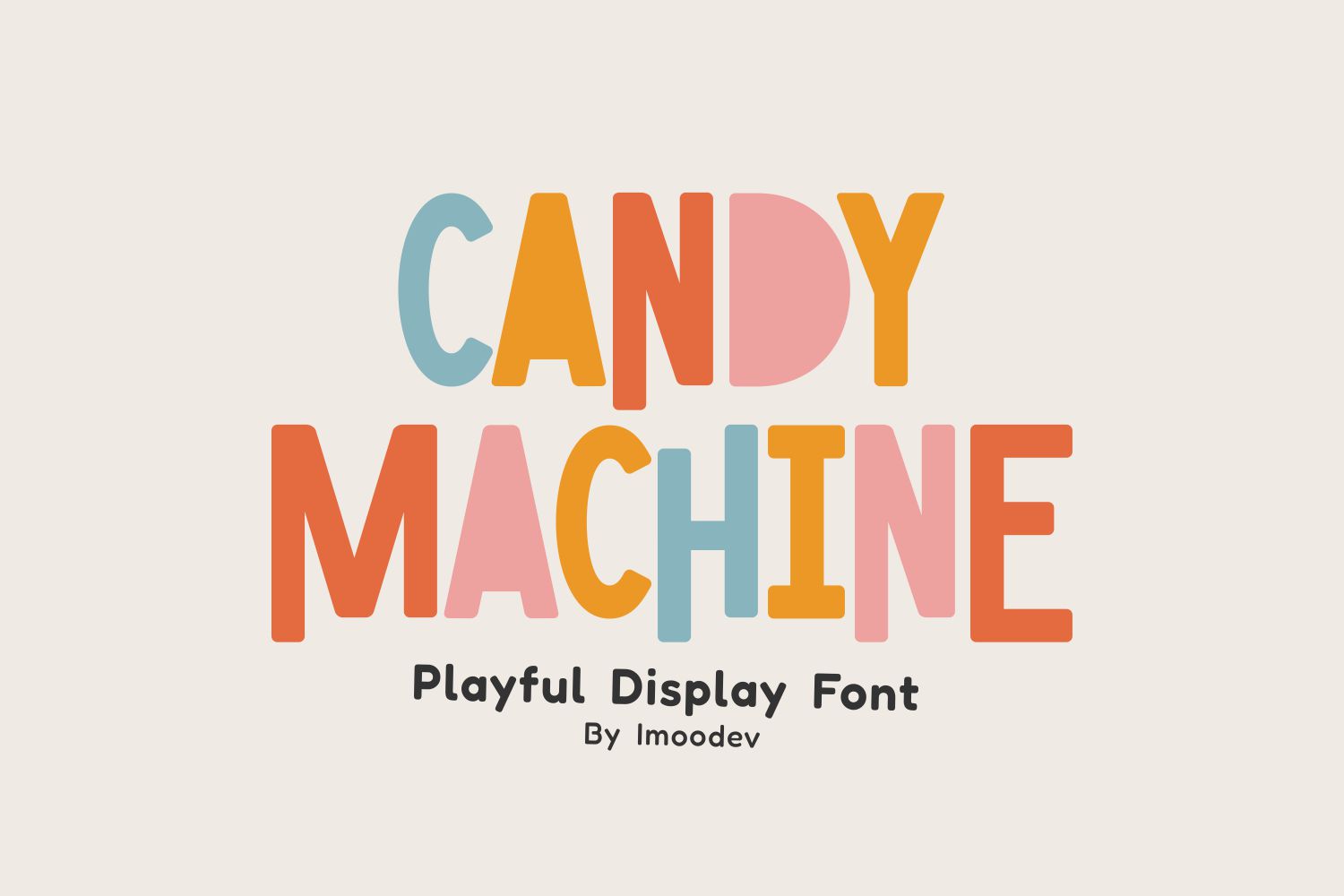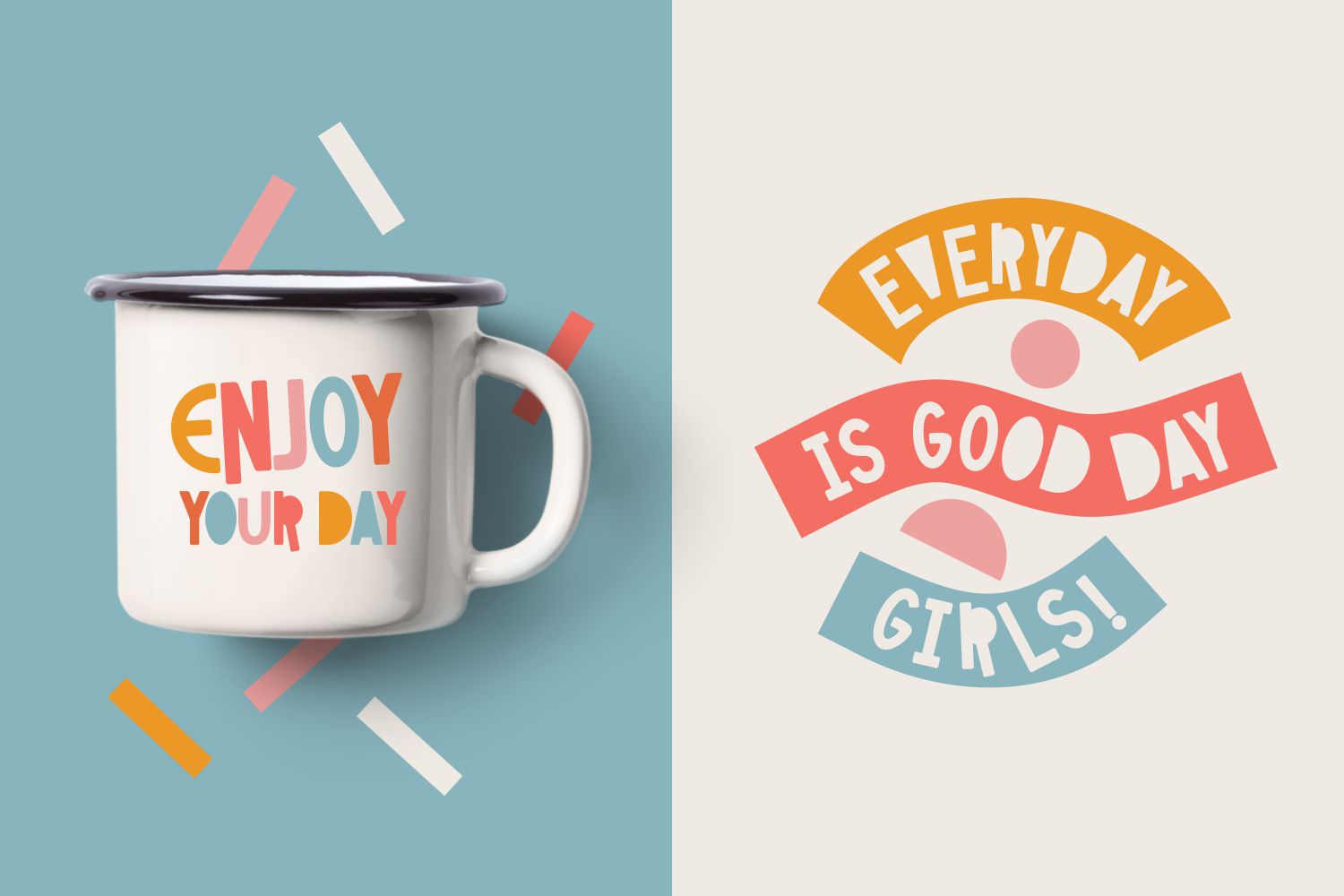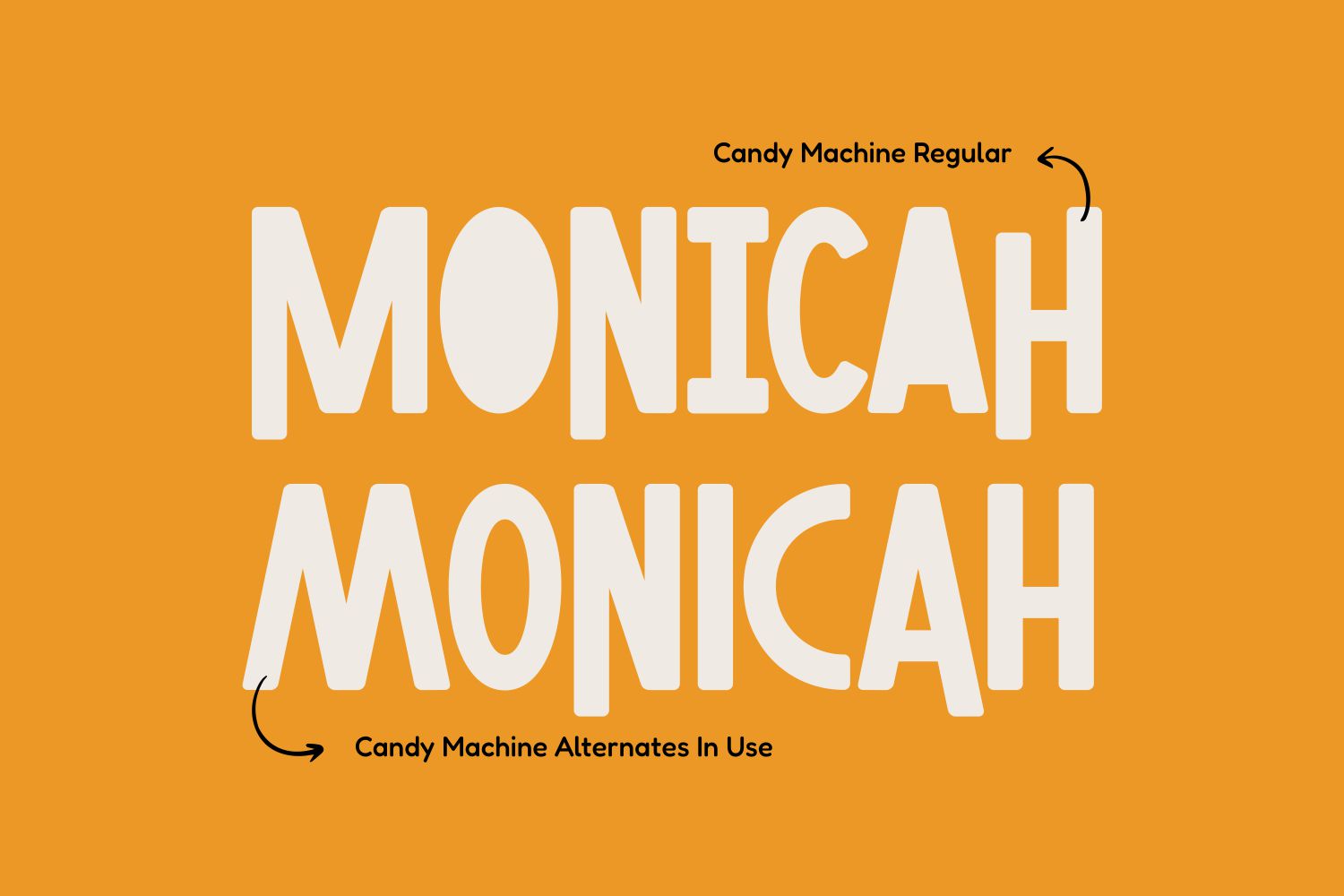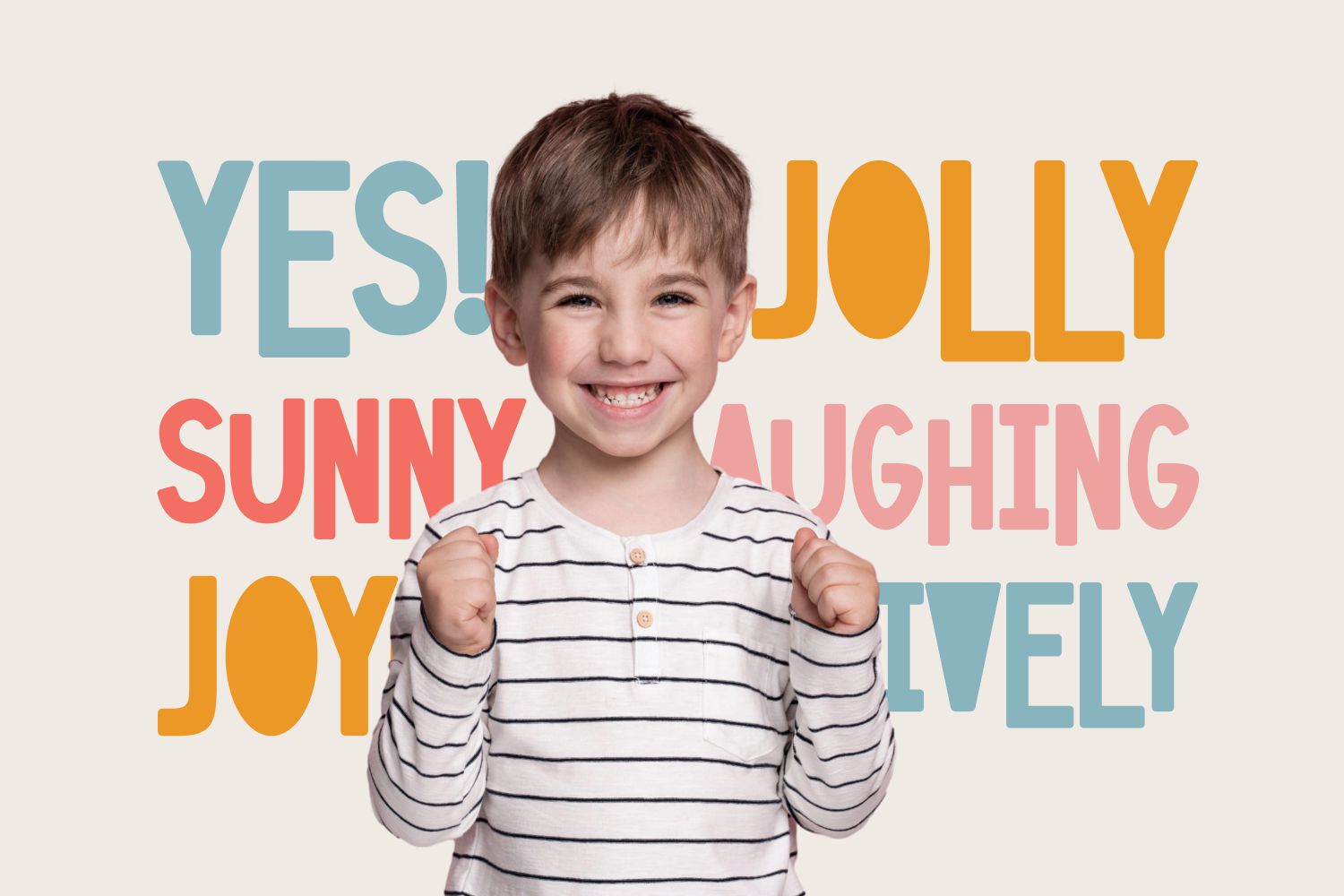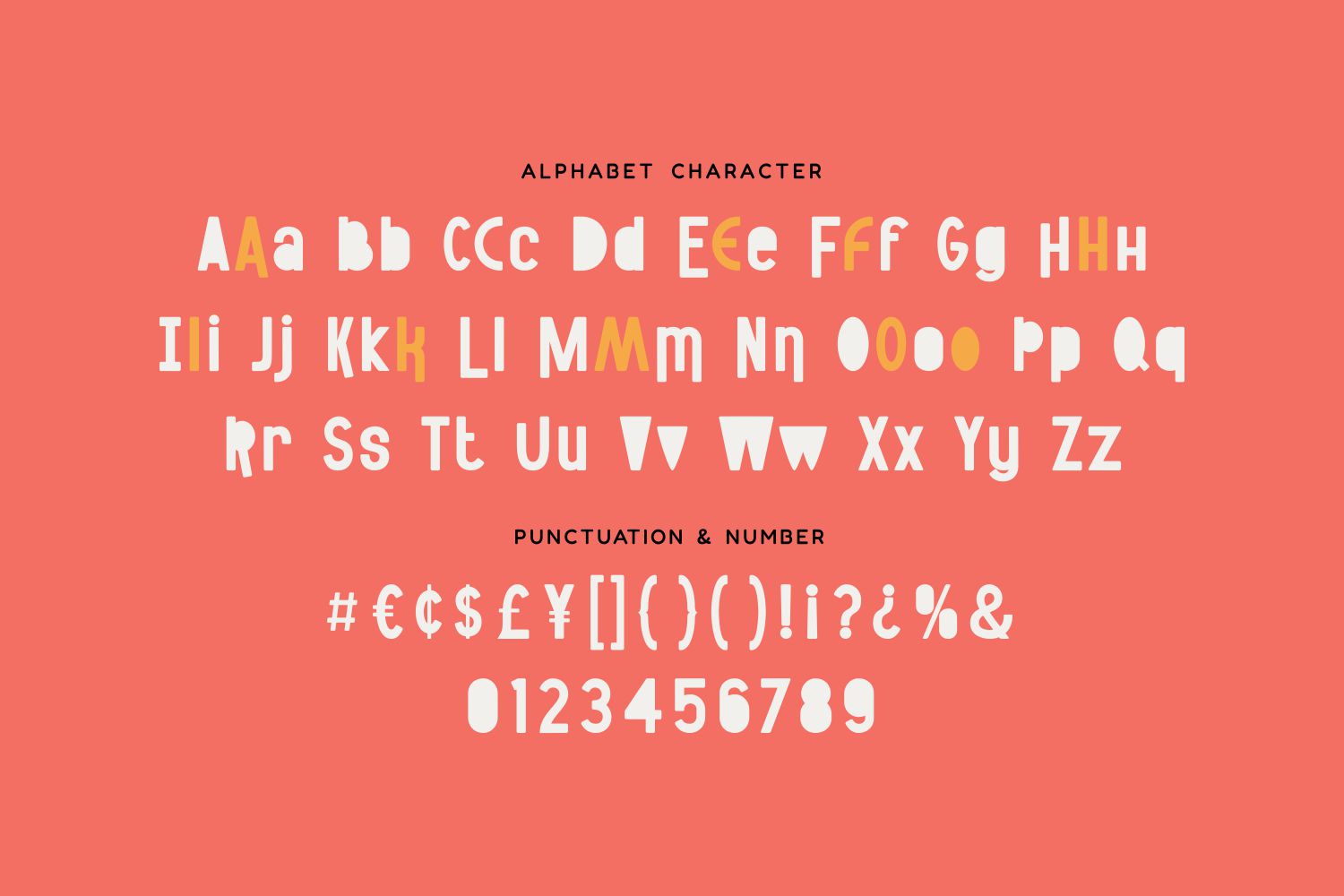
The Candy Machine font is a playful and vibrant display typeface designed to bring a cheerful and youthful energy to your projects. Its bold yet friendly letterforms feature quirky shapes and alternates, creating a sense of fun and spontaneity. Perfect for children’s designs, posters, branding, packaging, or any project that needs a burst of positivity, Candy Machine delivers a lighthearted personality that instantly grabs attention while maintaining readability.
This font also comes with alternate characters and a full set of punctuation and numerals, giving you creative flexibility to mix and match styles. With its colorful inspiration and joyful vibe, Candy Machine works beautifully for quotes, merchandise, greeting cards, and social media graphics. It’s a font that feels fresh, fun, and full of happiness, making it a go-to choice for playful design concepts.
Candy Machine